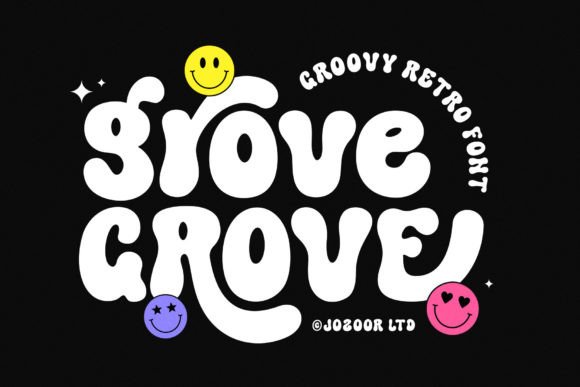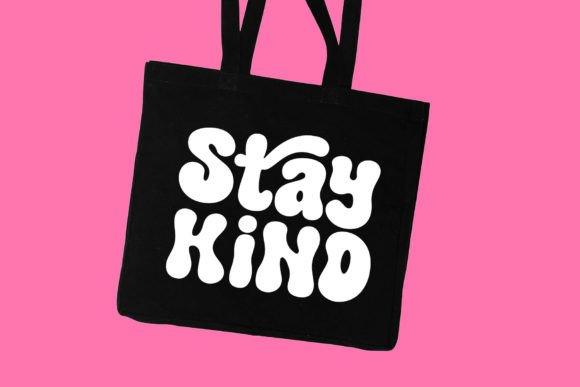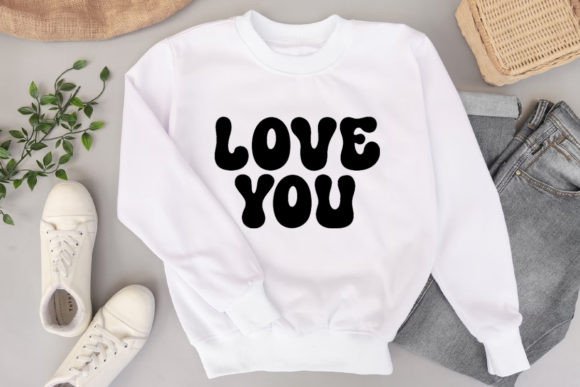
Grove Font: A Groovy 70s Display Font for Creative DIY & Cricut Projects
About the Grove Font
Welcome to the world of Grove Font, a typeface that will inspire your next great project. Grove is a groovy, retro, boho, and fun 70s display font. Whether you’re using it for crafts, digital design, presentations, or making greeting cards, this font has the potential to become your favorite, no matter the occasion! It is the best choice for creating eye-catching logos, branding, and quotes. Add it to your most creative ideas, and notice how it makes them come alive!
Grove’s playful, retro style is ideal for headlines, short text blocks in posters, and branding applications where a 70s vibe is desired. It excels in creating eye-catching logos and short, memorable taglines. However, its unique character and relatively large x-height make it unsuitable for body text or lengthy paragraphs, or UI elements requiring high readability.
Consider pairing Grove with a clean sans-serif like Montserrat for a balanced contrast, or a more geometric sans-serif such as Futura for a modern twist. A simple serif like Playfair Display could also work well, adding a touch of elegance to offset Grove’s playful energy.
Grove projects a fun, carefree personality, making it a great choice for brands targeting a younger demographic or those associated with music, fashion, or handcrafted goods. Avoid using it for projects requiring a serious or corporate image.
Grove Font Usage Examples